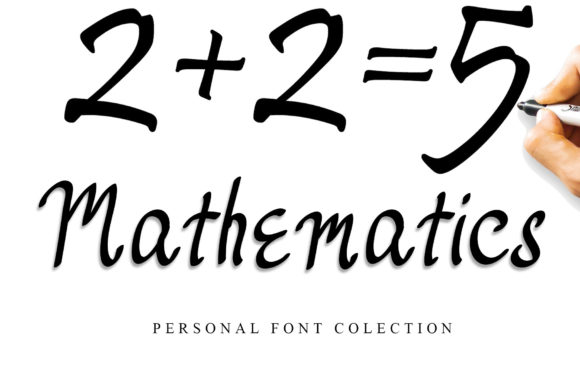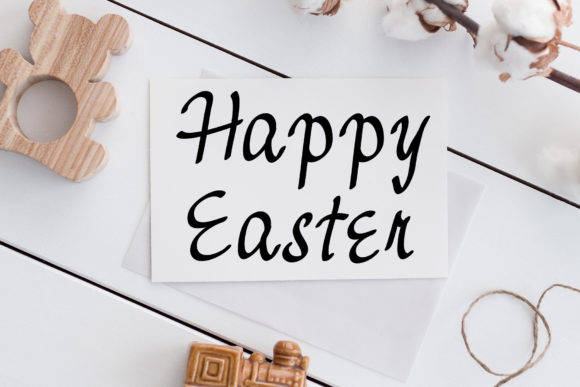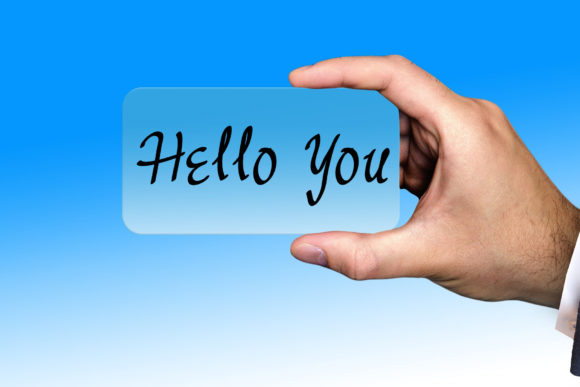
About Mathematics Font
Mathematics is a chic and refined script font that emanates sophistication and elegance. Its sleek and stylish design makes it the perfect choice for a wide range of projects. Whether you’re working on logos, branding materials, invitations, stationery, or any other creative endeavor, Mathematics will bring a touch of class and professionalism to your designs.
One of the standout features of Mathematics is its collection of stylish alternates and ligatures. These additional characters and letter combinations add variety and flair to your text, allowing you to create unique and eye-catching typography. From swashes and flourishes to decorative elements, Mathematics offers a range of options to enhance your design.
Furthermore, Mathematics is PUA encoded, which means you can easily access all of its glyphs and swashes. This encoding ensures that you can make the most of the font’s extensive character set without any complications.
With Mathematics, you have the freedom to experiment and explore different design possibilities. Its clean and refined appearance makes it suitable for both formal and informal projects. Whether you’re designing for print or digital platforms, this font will bring a touch of sophistication to your work.
In conclusion, Mathematics is a versatile and elegant script font that will elevate your designs to new heights. Its stylish alternates, ligatures, and PUA encoding make it a valuable addition to your font library. So, embrace the beauty and sophistication of Mathematics and let it enhance your creative projects with its timeless charm.